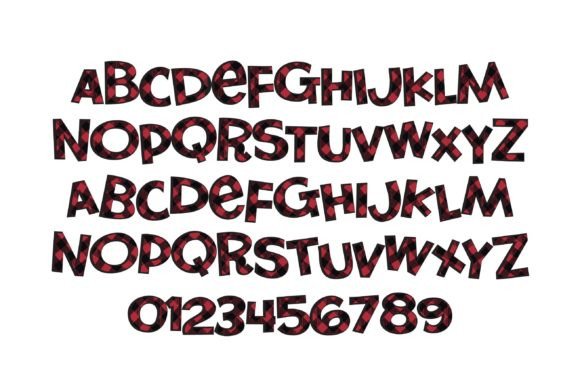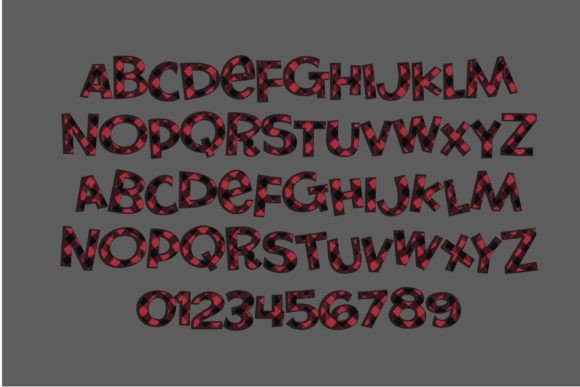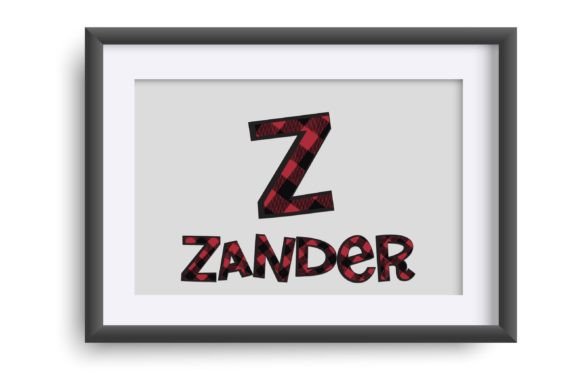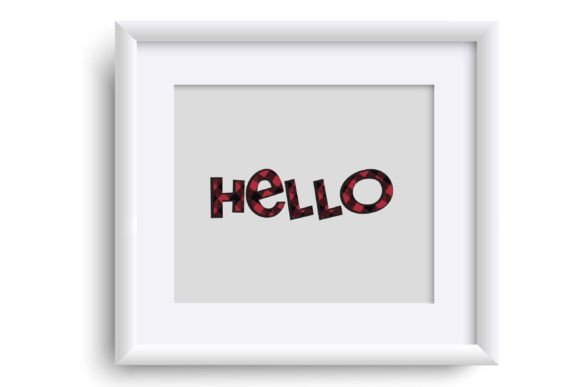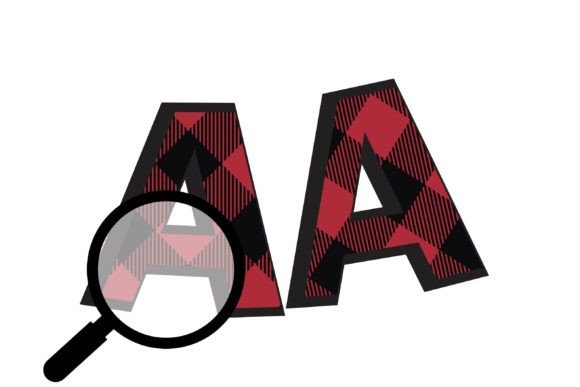
Channel the Flannel Font: A Vibrant and Versatile Typeface for Designers and Crafters
Are you ready to add a touch of rustic charm to your designs? Look no further than the Channel the Flannel Font, a unique and eye-catching typeface that features a bold, full-color buffalo print in red, black, and white. This exciting font is perfect for designers and crafters who want to add a bit of country flair to their work, and it’s easier to use than you might think.
What is the Channel the Flannel Font?
Key Features of the Channel the Flannel Font
- Full-color design: The Channel the Flannel Font features a bold, full-color buffalo print in red, black, and white, giving it a unique and eye-catching appearance.
- SVG technology: This font uses SVG technology, which allows for crisp and clear rendering at any size.
How to Use the Channel the Flannel Font
Using the Channel the Flannel Font is easy. Once you’ve installed the font, simply select it in your design program and start typing. The font will appear in full color, with the bold buffalo print design coming to life on your screen. You can use this font in a variety of design projects, from paper crafting and scrapbooking to signage and advertising.
Tips for Working with the Channel the Flannel Font
- Experiment with different sizes: The Channel the Flannel Font can be used at a variety of sizes, from small and delicate to large and bold.
- Combine with other fonts: Try pairing the Channel the Flannel Font with other fonts for a unique and interesting look.
Design Ideas with the Channel the Flannel Font
The Channel the Flannel Font is a versatile typeface that can be used in a wide range of design projects. Here are a few ideas to get you started:
- Paper crafting: Use the Channel the Flannel Font to add a touch of rustic charm to your paper crafting projects, such as scrapbooking pages or handmade cards.
- Signage: This font is perfect for creating eye-catching signage, such as welcome signs or directional signs.
- Advertising: Use the Channel the Flannel Font to add a bit of country flair to your advertising materials, such as brochures or flyers.
- Digital art: This font can be used to create beautiful digital art, such as illustrations or graphics.